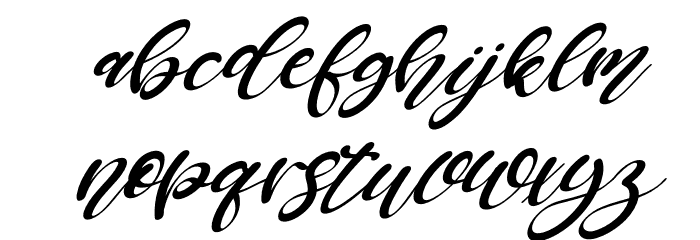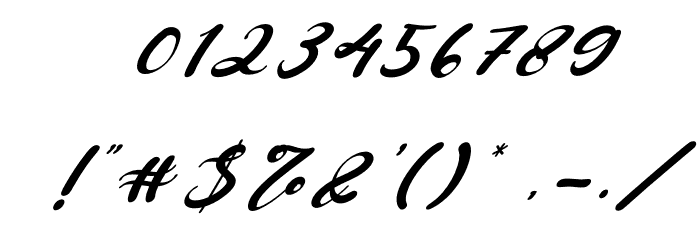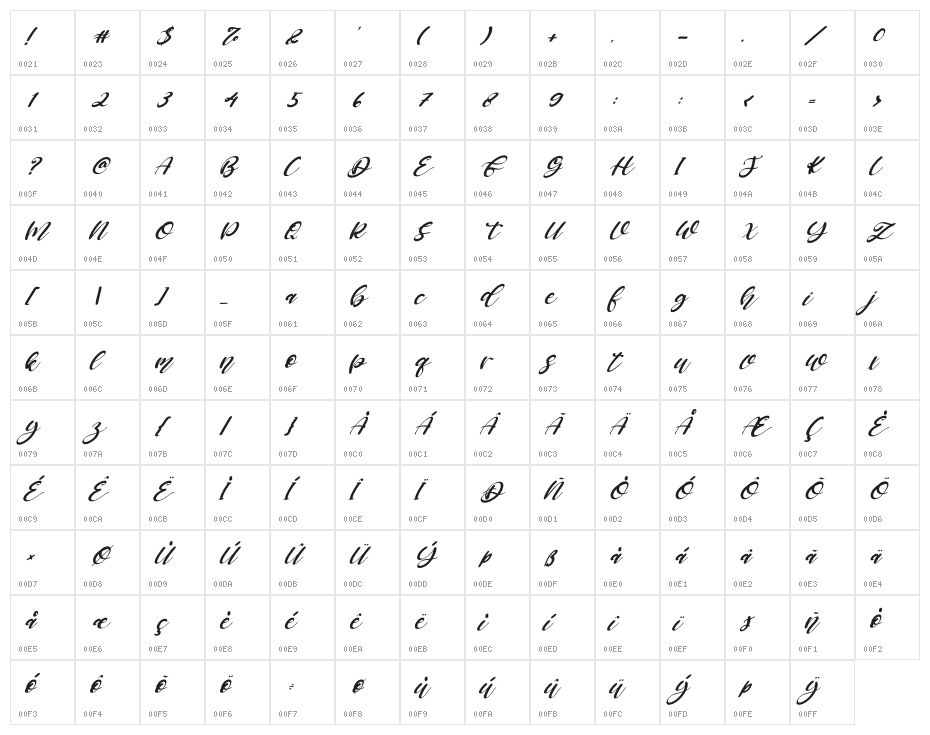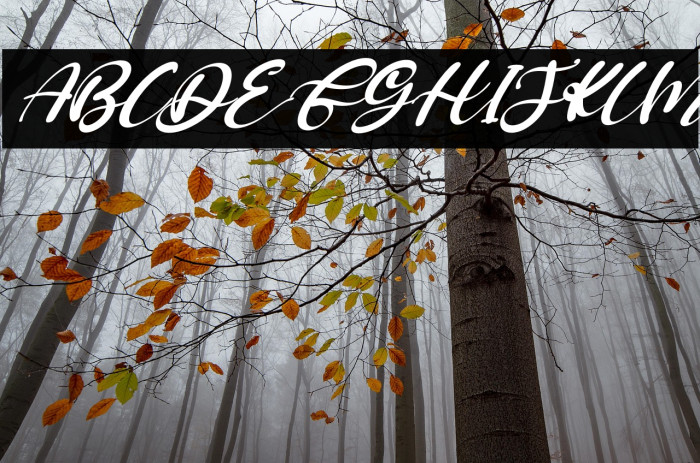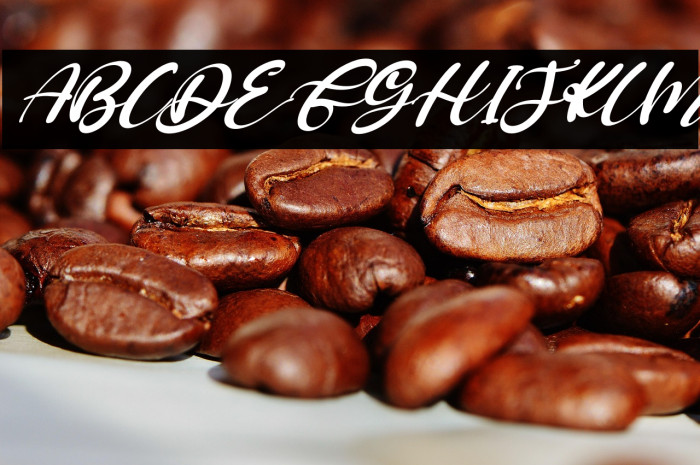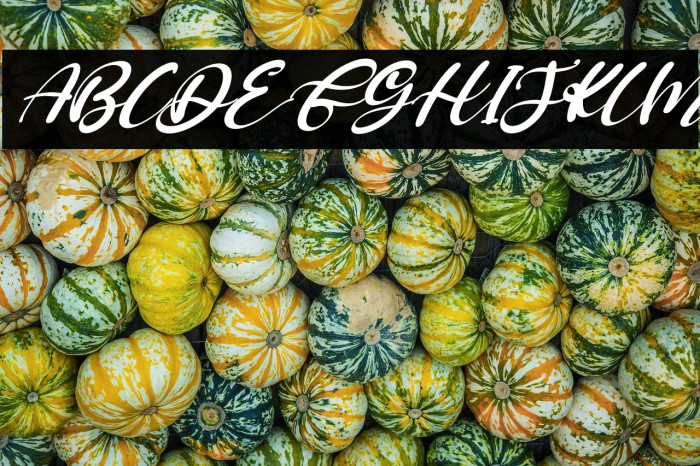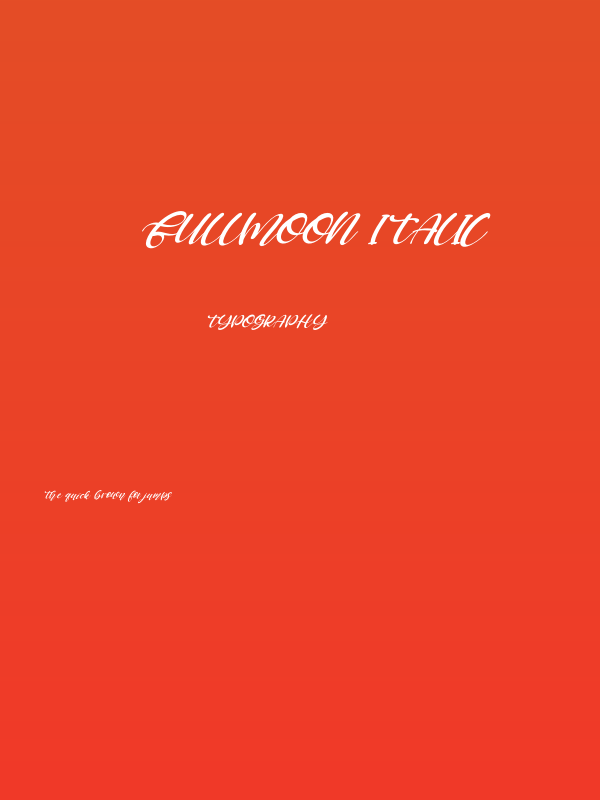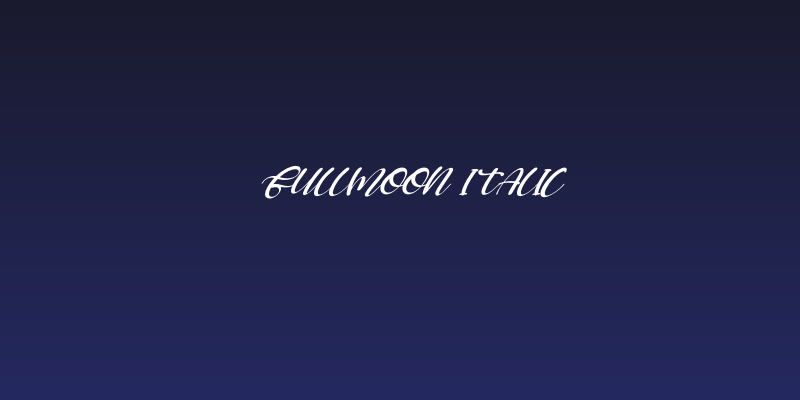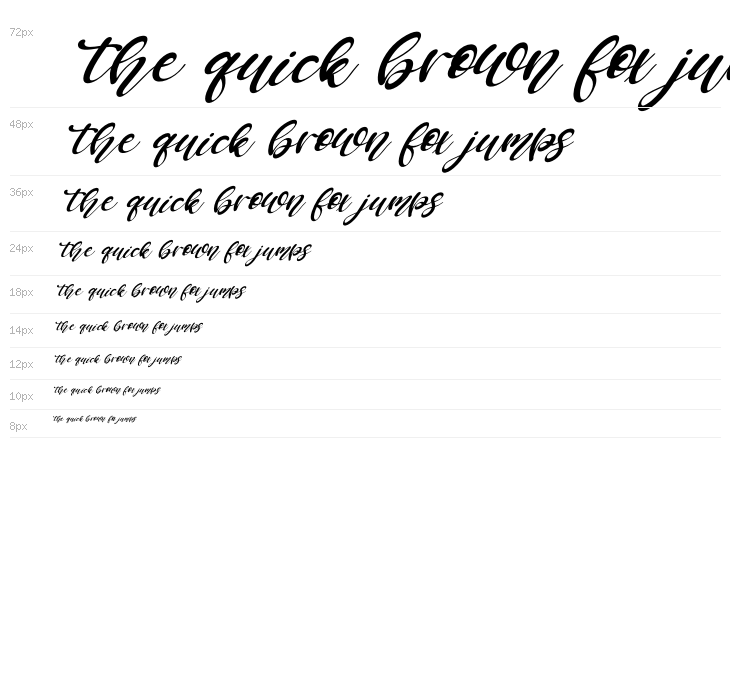
Fullmoon Italic Font
This font exudes a dynamic and fluid style, characterized by its cursive, handwritten appearance. The letters are elegantly slanted, creating a sense of motion and grace. Each character is crafted with smooth, flowing strokes that vary in thickness, adding a lively and expressive feel. The uppercase letters are bold and prominent, while the lowercase letters maintain a consistent flow, enhancing readability. The numerals and special characters are designed to complement the overall aesthetic, maintaining the same fluidity and style. This font is perfect for projects that require a personal, artistic touch.
A dynamic, cursive font with fluid, expressive strokes.
- Font: Fullmoon Italic
- Proposed Projects: Ideal for wedding invitations, greeting cards, branding, and artistic projects.
- Category: Script
- Use Case: Logos, Invitations, Artistic projects